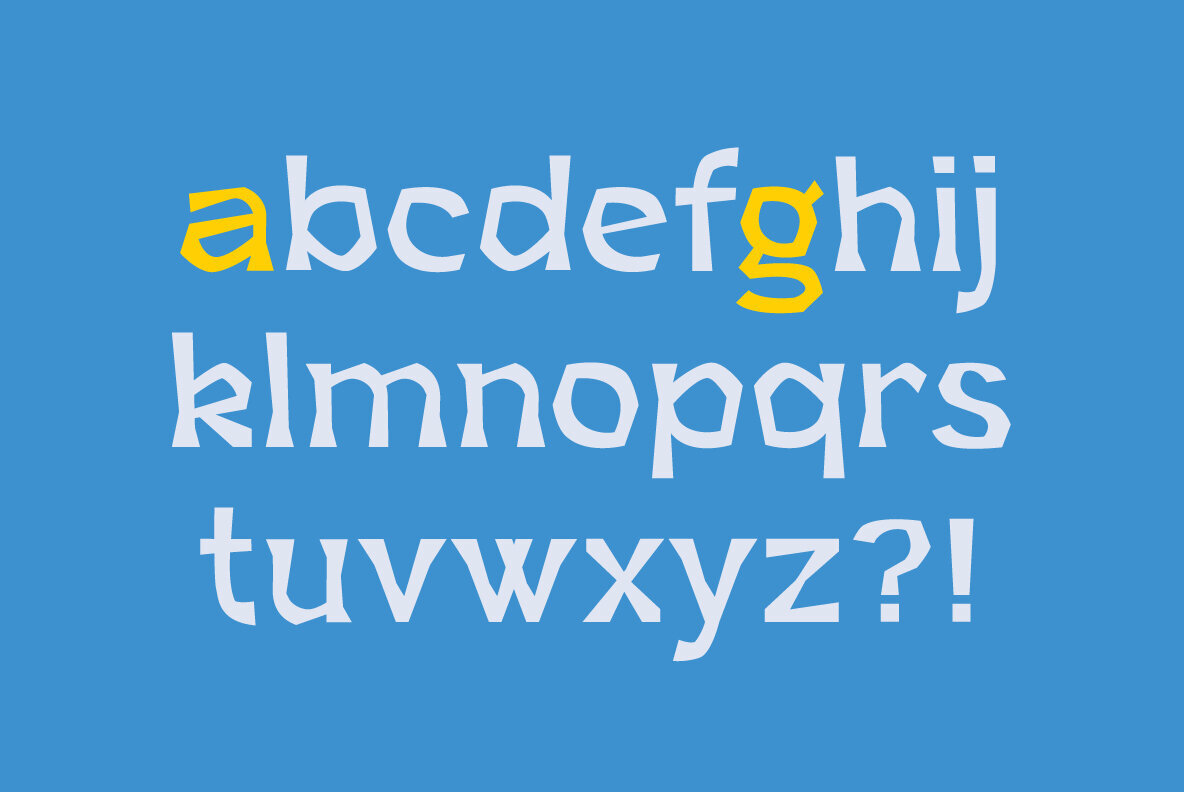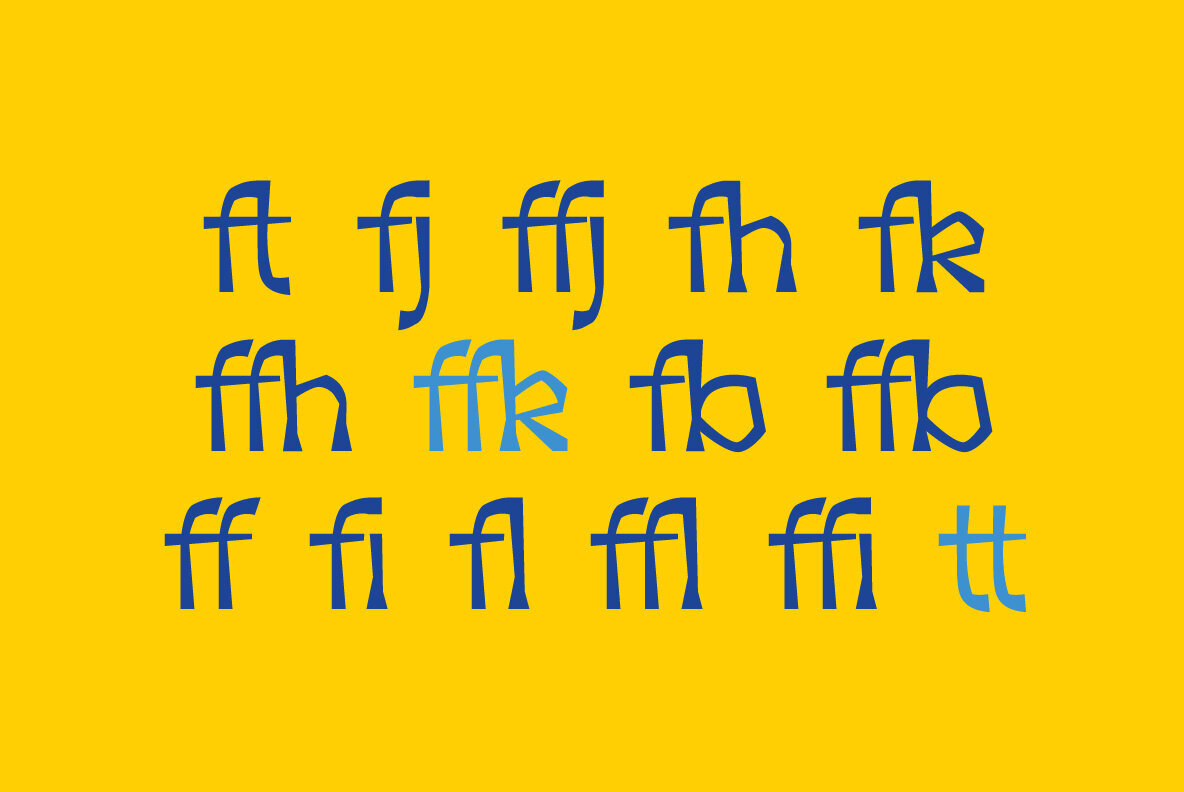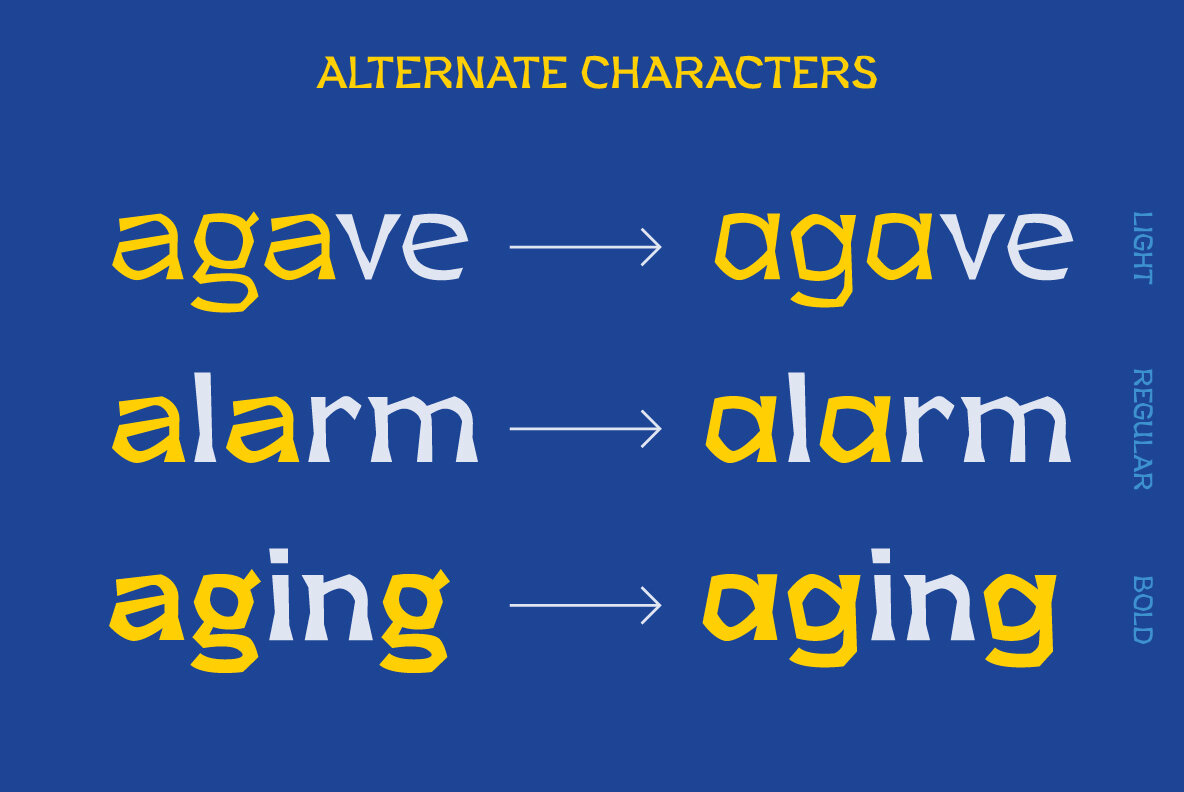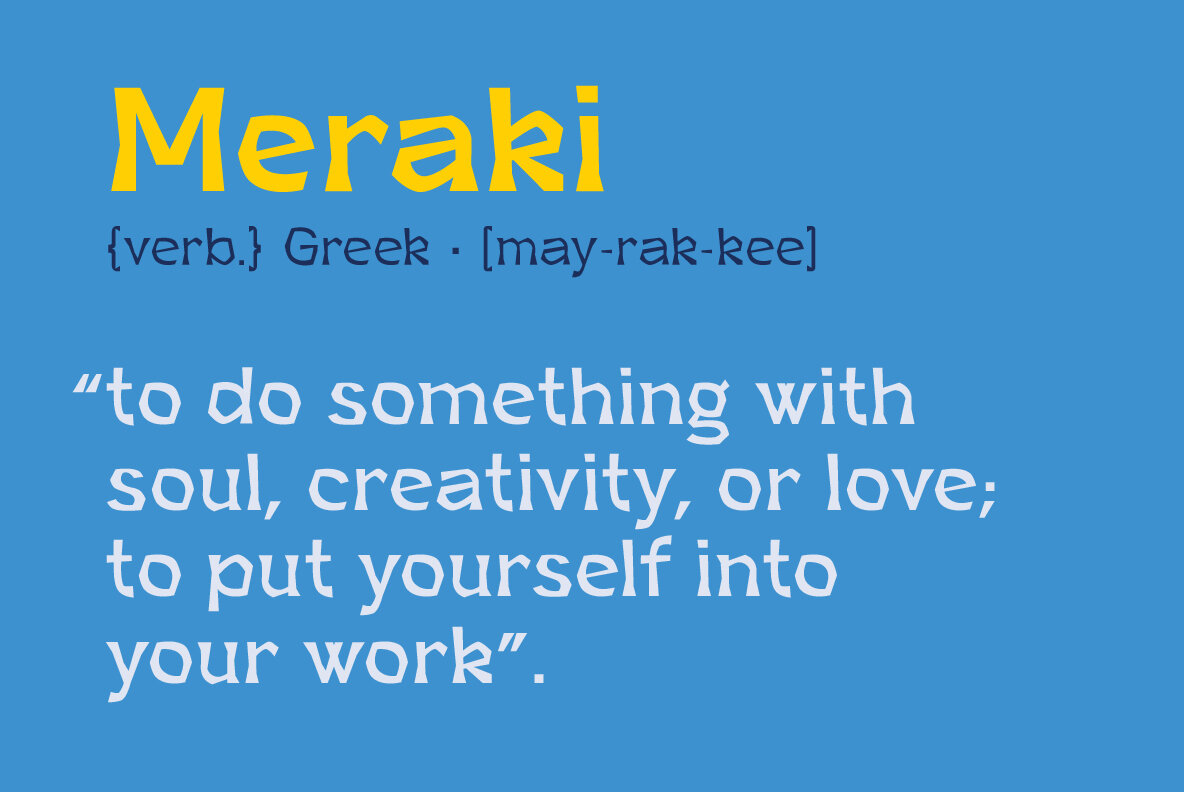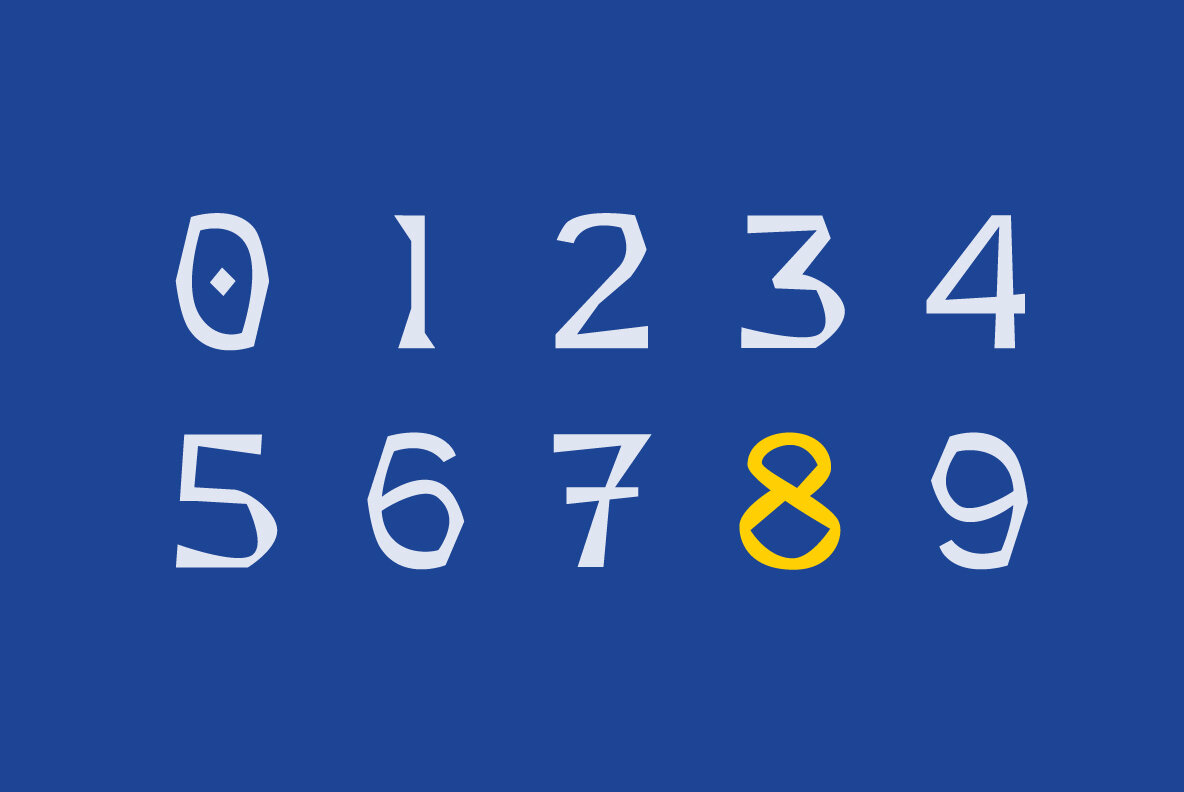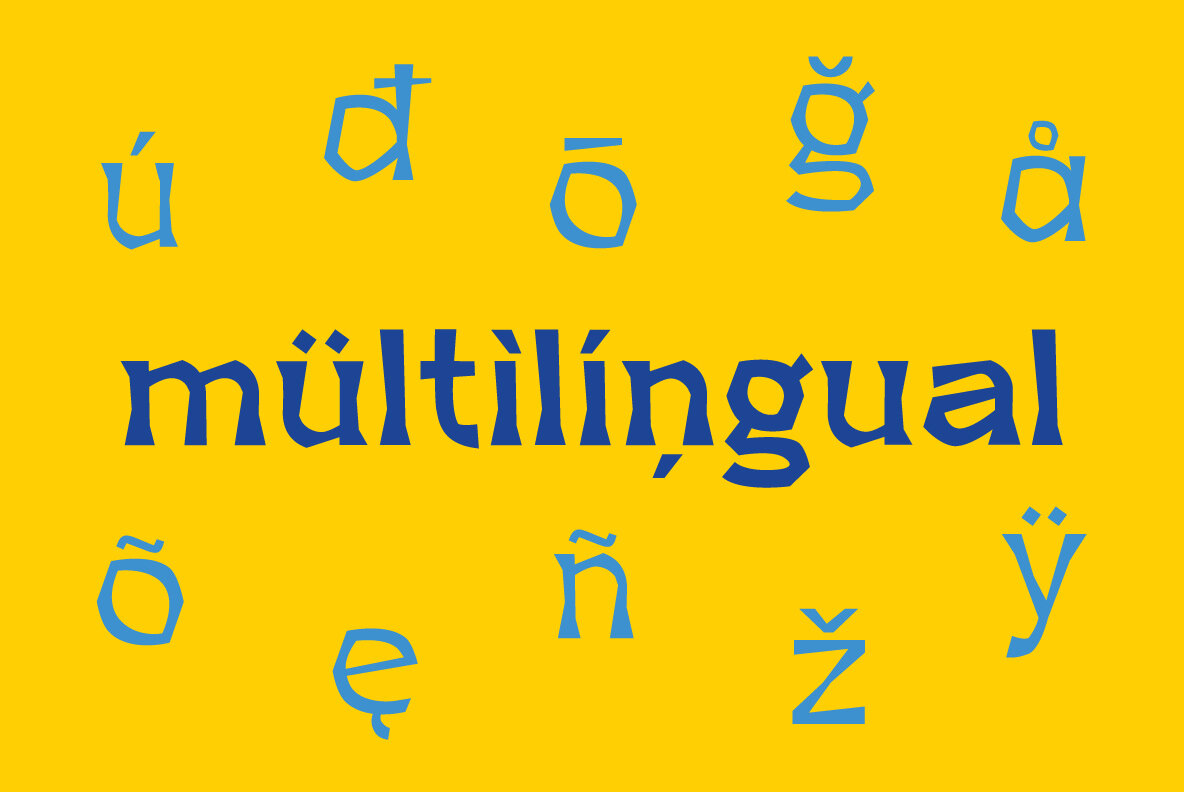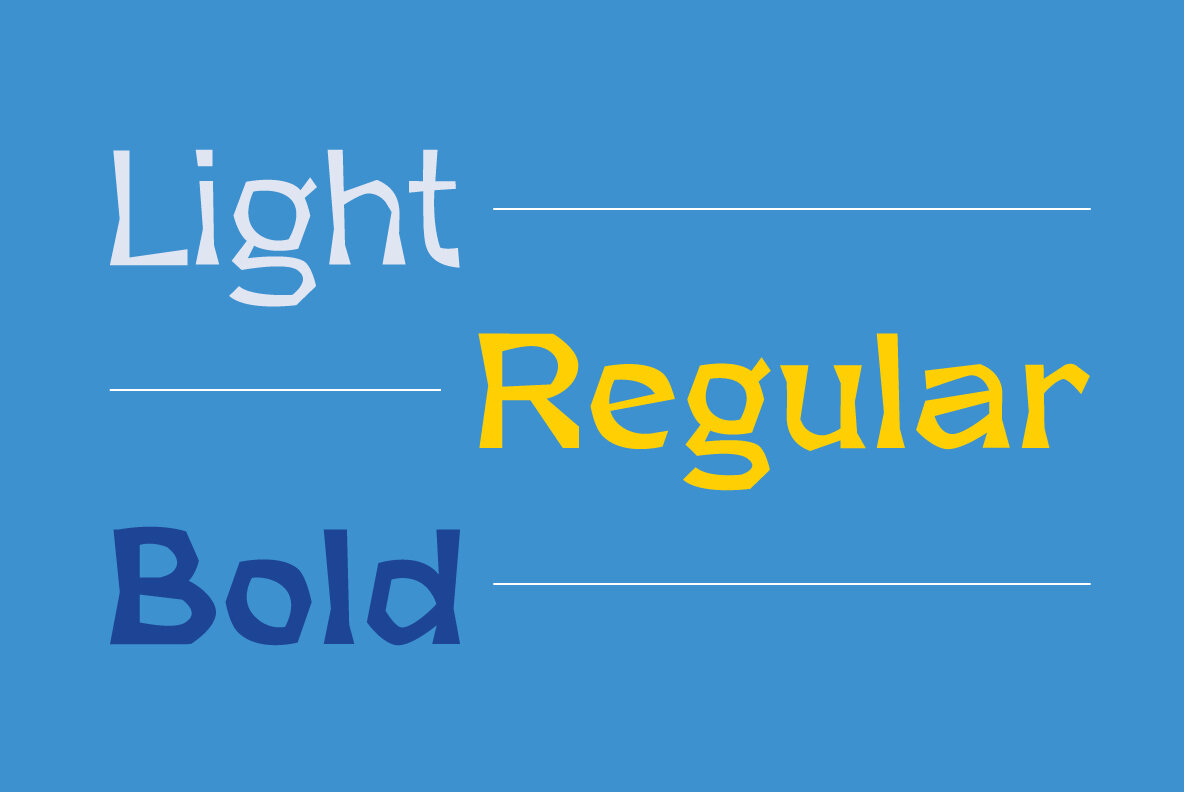
Meraki Display Font
Meraki Display is contemporary display font - expressive, daring and edgy. Perfect for a dose of fun for your project!
Features the most common stylistic ligatures, alternate characters for a and g.
Multilanguage support: Czech, Danish, German, English, Spanish, Estonian, Finnish, French, Irish, Hungarian, Icelandic, Italian, Lithuanian, Latvian, Norwegian, Polish, Portuguese, Slovak, Slovenian, Albanian, Swedish, Turkish.